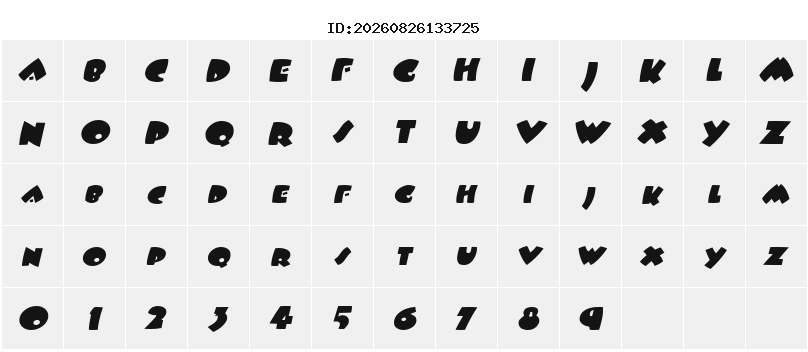
Wampum-Extended Preview
• Font Name: Wampum-Extended
• Full Font Name: Wampum-Extended Italic
About Wampum-Extended.ttf
Wampum-Extended.ttf is a modern, elegant sans-serif font designed for ultimate readability and visual harmony. Perfect for branding, headlines, web design, and print materials.